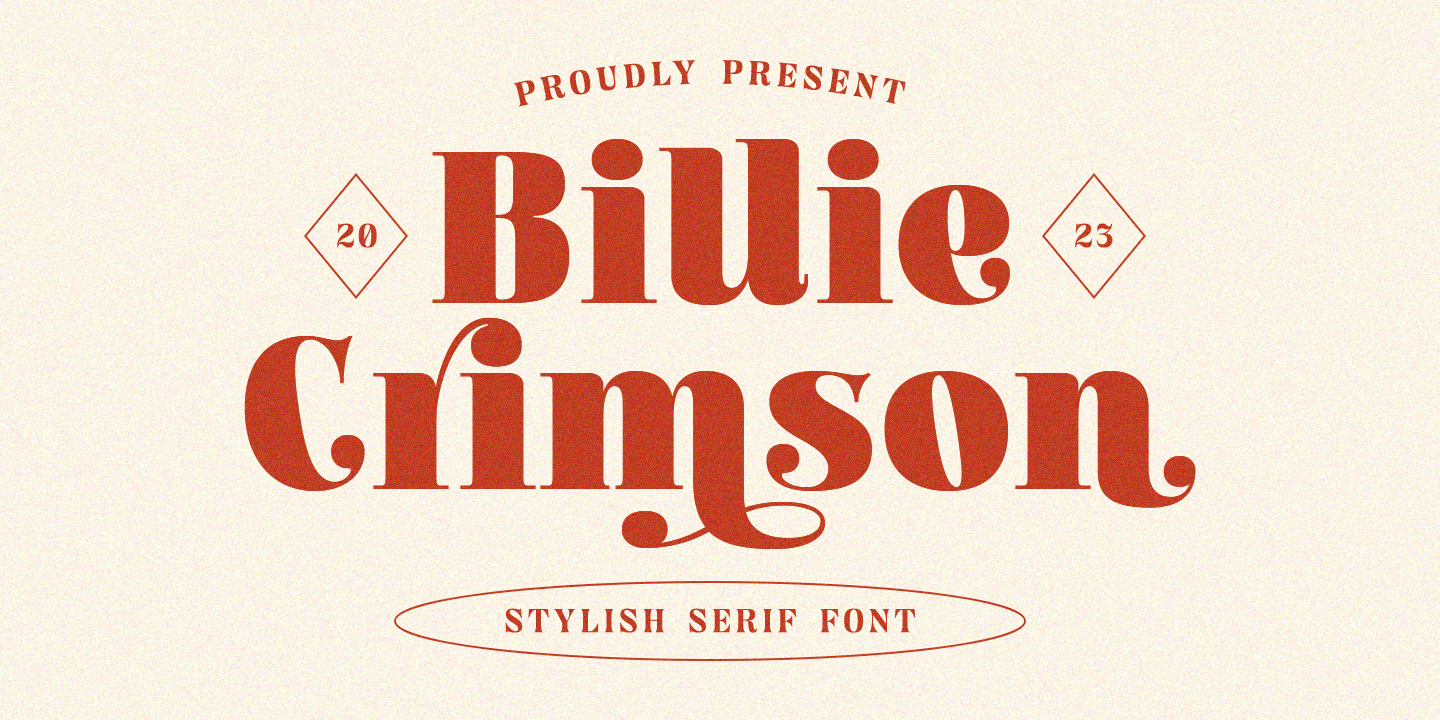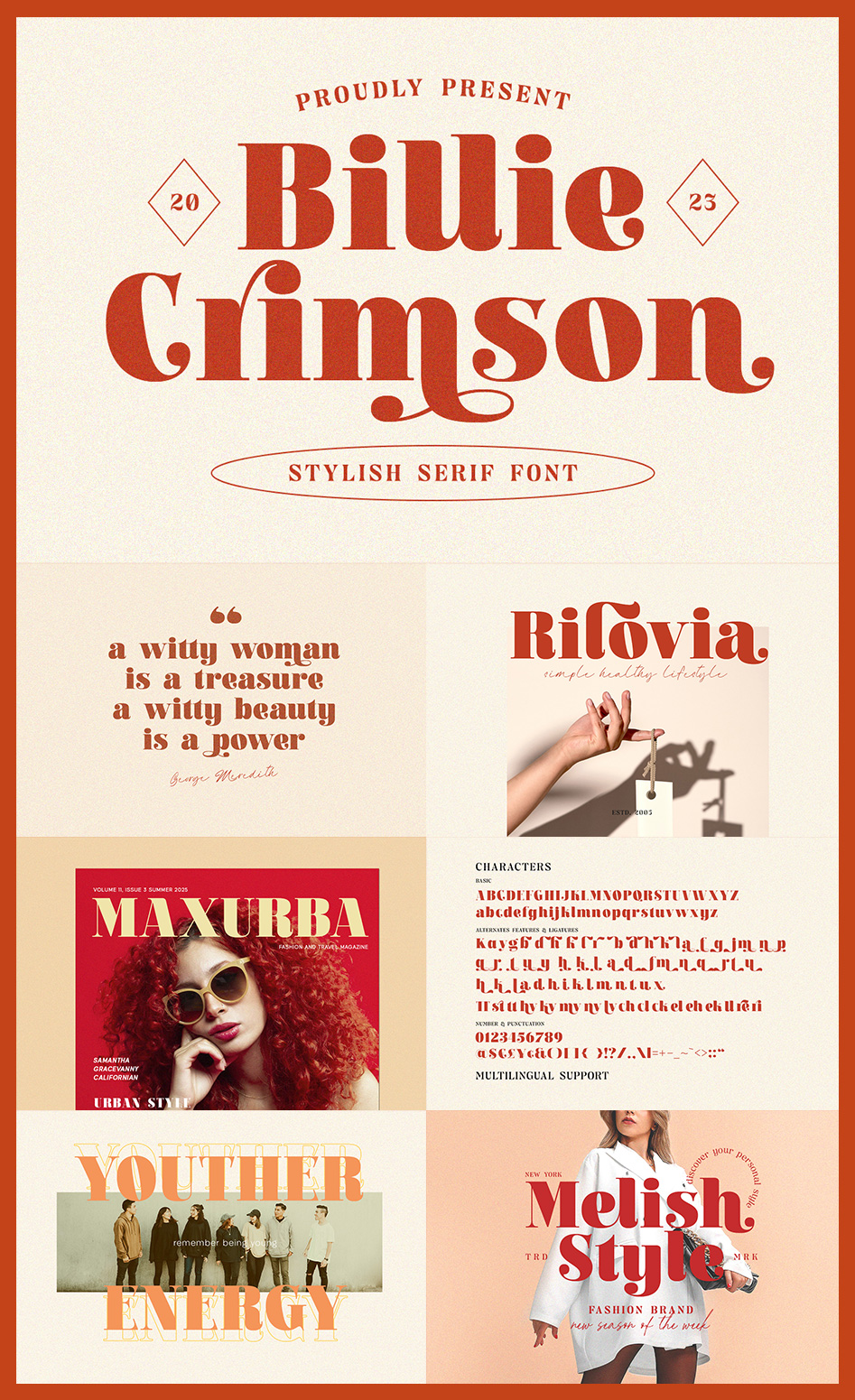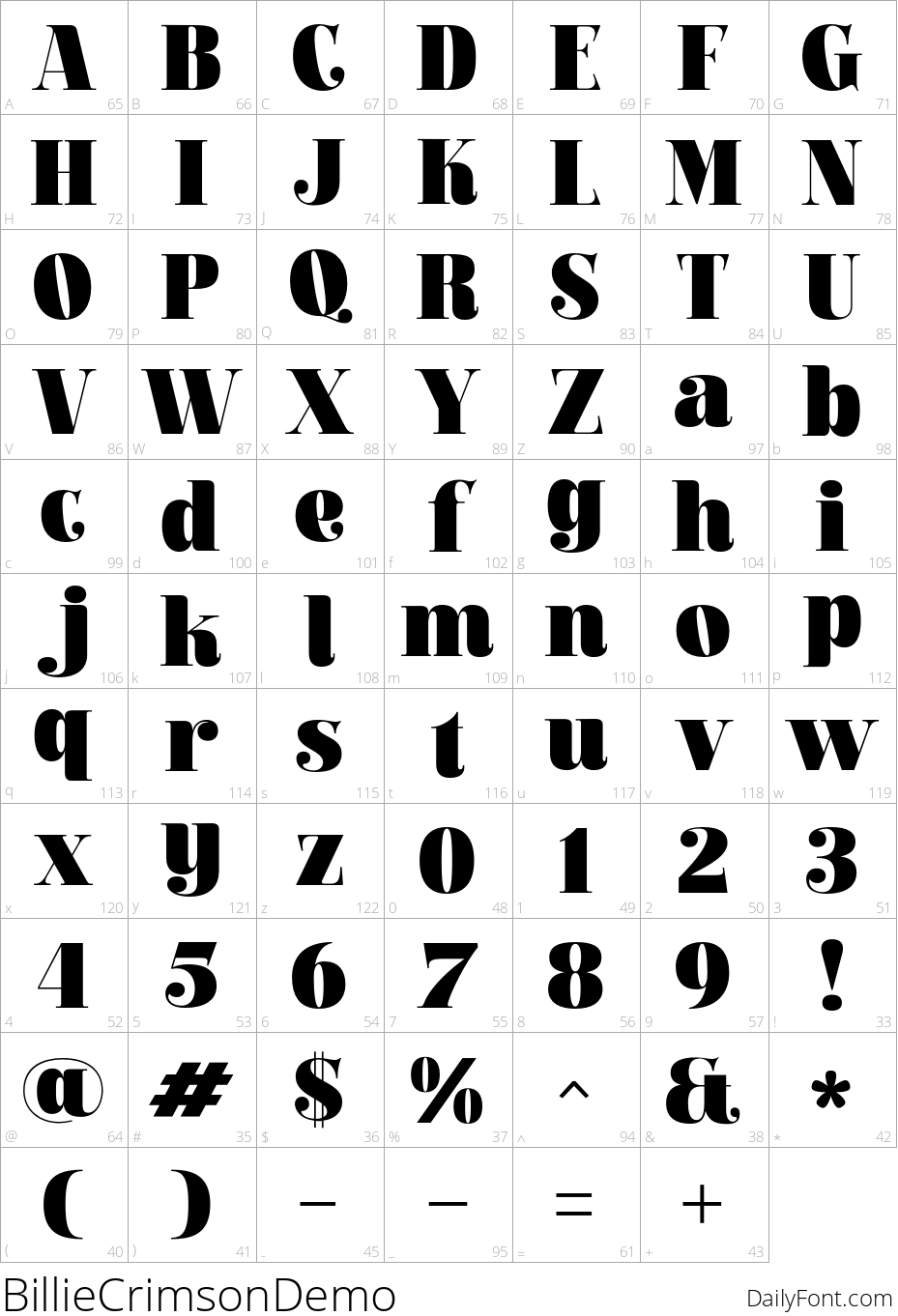
Billie Crimson
Billie Crimson is a stylish serif font that exudes class and timelessness. Its sophisticated and classic look makes it the perfect choice for a variety of design projects, including logos, invitations, and formal stationery. Whether you're designing a magazine, a book, or greeting/wedding cards, Billie Crimson elevates the aesthetic of your work, making it stand out with elegance.
This versatile font also caters to a broad range of applications, such as packaging, fashion, and makeup branding. With several alternate characters available, Billie Crimson offers unique variations that enhance your designs further. Ideal for advertising and promotional materials, this font not only captures attention but also conveys a sense of refinement that is essential in today's competitive marketplace. Make your next project unforgettable with Billie Crimson, the font that combines style and sophistication effortlessly.